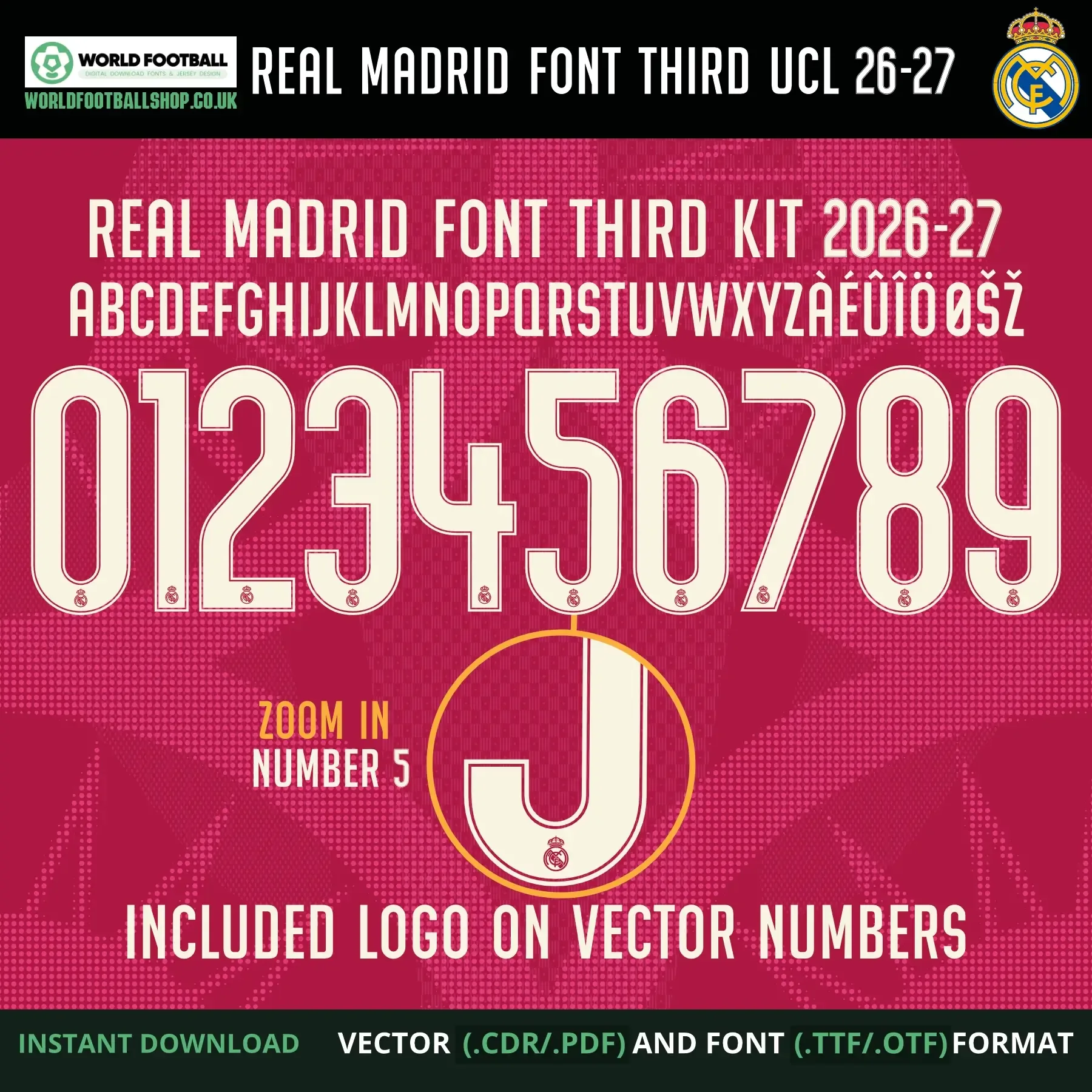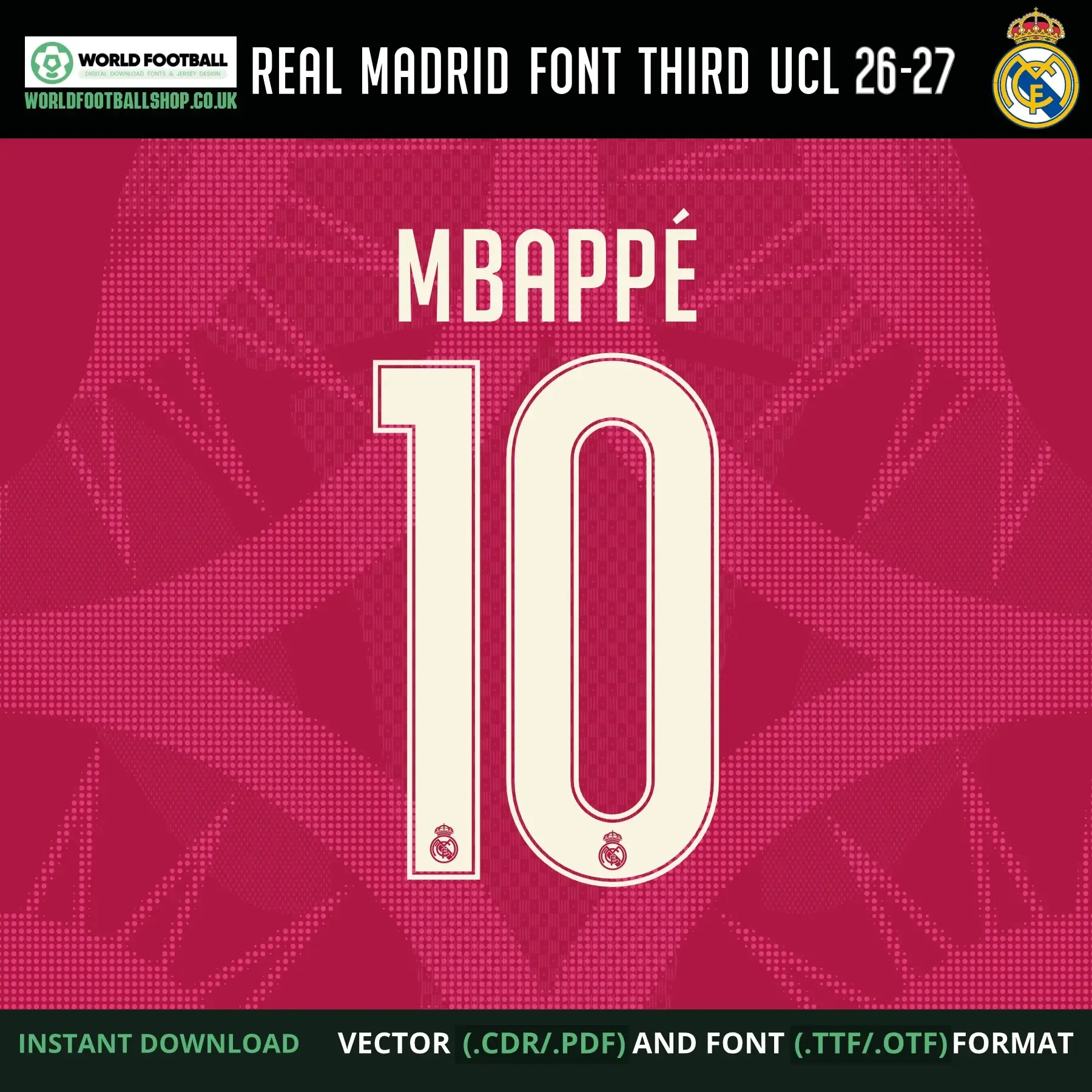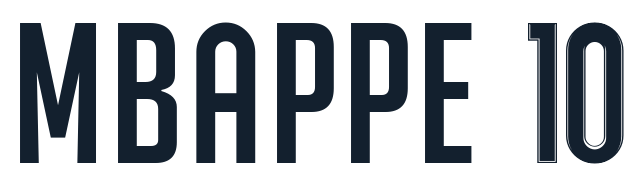
Real Madrid 2026-27 Football Font Vector Third UCL
Real Madrid 2026-27 Football Font Vector Third, inspired by the style of Real Madrid's third kit lettering for the Champions League. Includes TTF and OTF font files plus CDR and PDF vector files, with a full A-Z alphabet, numbers 0-9, and accented characters (À, É, Û, Î, Ö, Ø, Š, Ž). Instant digital download - no physical product is shipped.
Real Madrid 2026-27 Football Font Vector Third UCL
Real Madrid's actual 2026-27 third kit brought back pink for only the third time in club history, after a six-year absence - a dark pink base with a tonal geometric pattern of interlocking circles and diamonds inspired by the club crest, finished with ivory trim. This Real Madrid football font vector captures that identity: cream lettering with a thin outline, set against a deep magenta background with a subtle diamond-pattern texture, with the club crest embedded at the base of every letter and number. The preview layout shows the full character set alongside a sample name and number combination - MBAPPÉ 10 - to demonstrate how the font looks applied.
- Cream-on-magenta styling reflects Real Madrid's rare pink third-kit identity
- Crest detail embedded on every character for a cohesive, kit-inspired look
- Crest detail on every number - ideal for accurate shirt number recreations
This font is an independent recreation, studied closely from the third kit's actual lettering to capture its proportions, outline style, and crest placement. It's built for jersey mockups, fan art, matchday graphics, and personal creative projects.